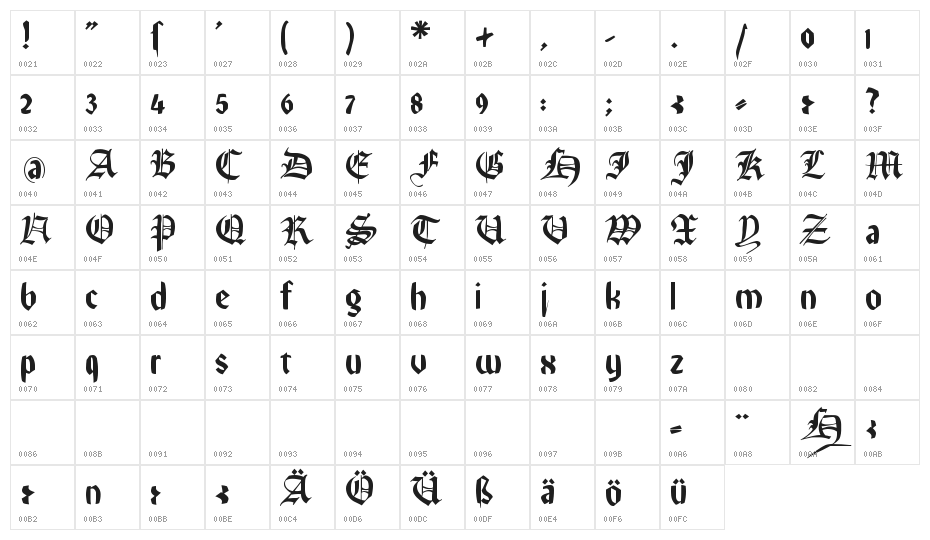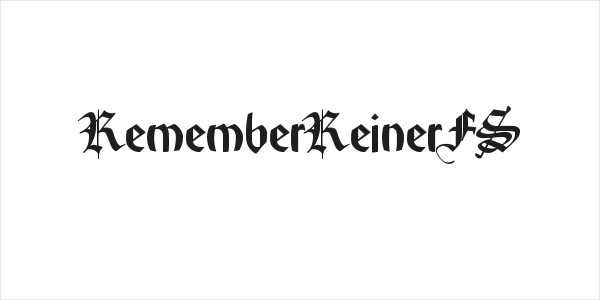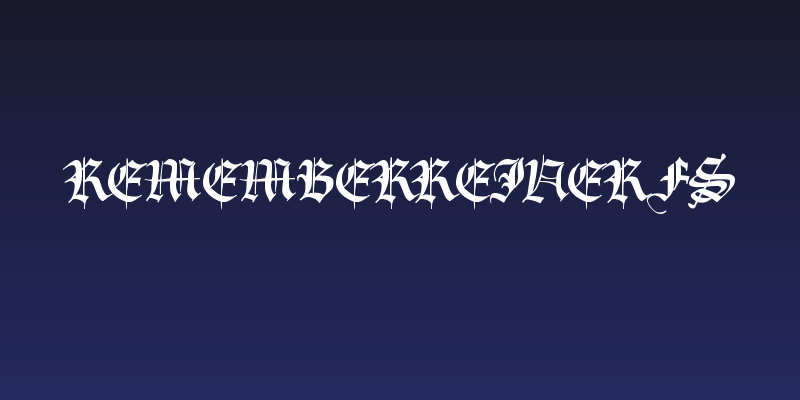
RememberReinerFS Font
RememberReinerFS Description
This font exhibits a striking and bold design, reminiscent of traditional blackletter styles. The uppercase letters are ornate, with intricate curves and sharp edges, giving them a gothic and medieval appearance. The lowercase letters maintain a strong presence with thick strokes and angular forms, providing a harmonious balance between readability and decorative flair. The numerals are consistent with the overall style, featuring bold and angular lines. Special characters are designed with similar attention to detail, ensuring they complement the alphabetic characters seamlessly. This font is ideal for projects that require a dramatic and historical aesthetic.
| Overall Style | Gothic, Decorative |
| Use Case | Logos, Headlines, Posters |
| Proposed Projects | Ideal for branding, posters, book covers, and any design requiring a historical or gothic touch. |